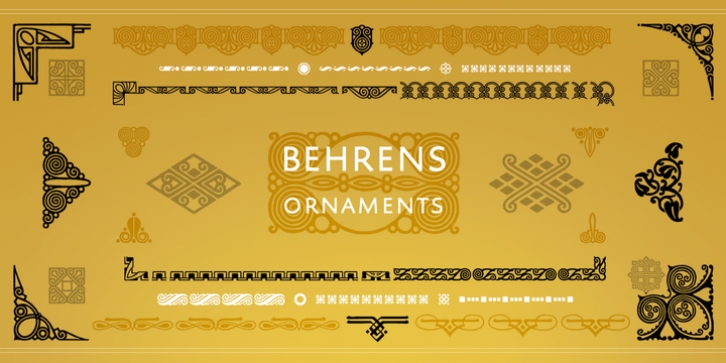
Behrens Ornaments was designed by Peter Behrens, Andreas Stötzner and published by SIAS. Behrens Ornaments contains 1 style.
With Behrens Ornaments SIAS presents a historic revival font for the very first time. Peter Behrens (1868–1940) was a German designer and architect rooted in the style of the Art nouveau era but later became one of the most prolific exponents of the modernist movement in the 1920ies and 1930ies. The design of typographic ornaments was one of many fields of his activities. The "Behrens Schmuck" set of adornment types layed dormant for many decades, known only to letterpress freaks and specialists. After 100 years, with this release SIAS celebrates one of the creative masterminds in German design history, unearthing a treasury of 80 unique ornaments and embellishment pieces for nowaday's use.
In order to attain a faithful remake as authentic as possible, the Behrens ornaments have been photographically reproduced from a 1914 specimen book. The outlines have been edited carefully to minimize accidental visual disturbances, yet the main goal was to keep the "smell" of the original letterpress printing as good as possible.